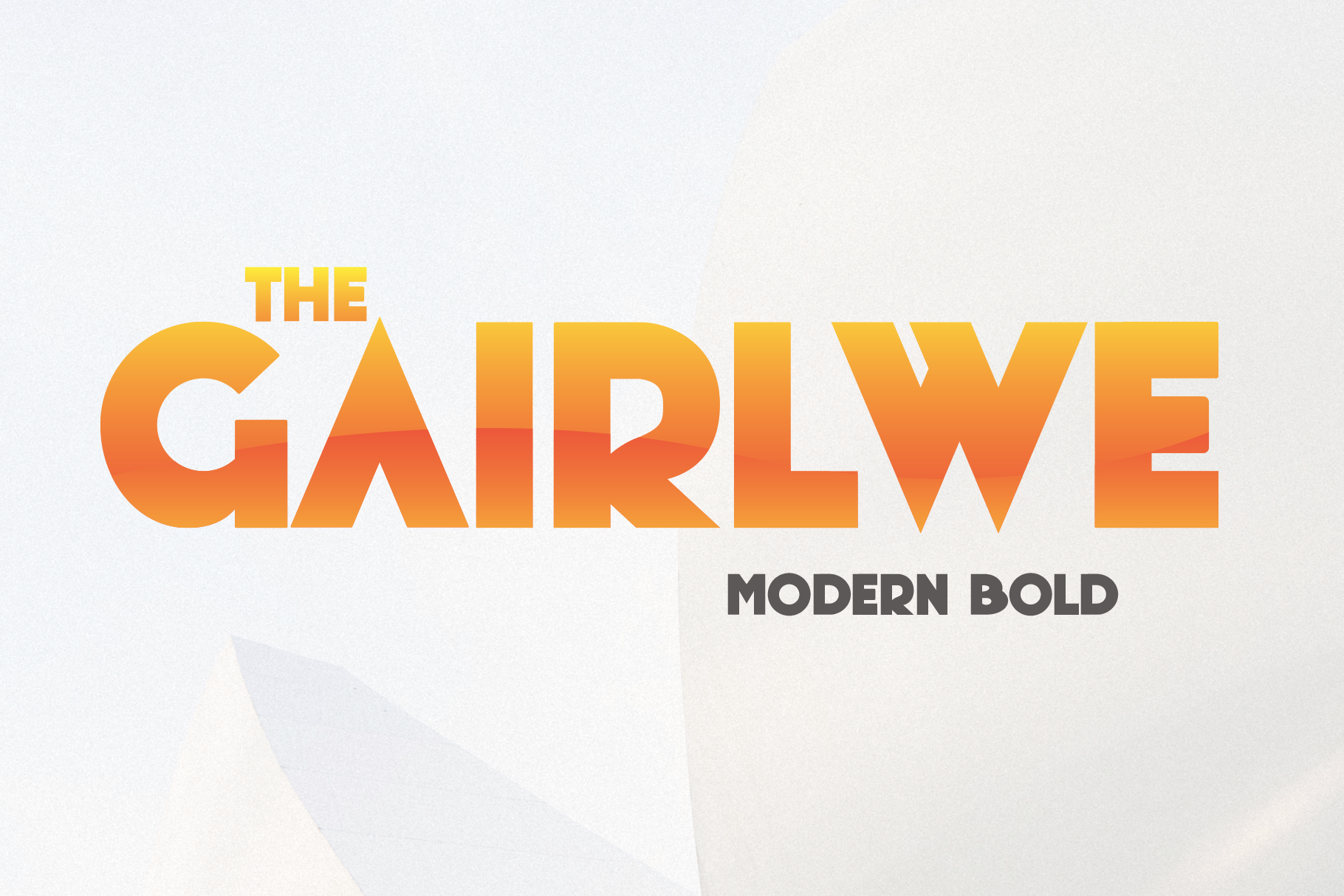
Gairlwe - Bold Font
Introducing Gairlwe, an modern, simple, and bold sans serif font. So perfect for you who needs a typeface for logo designs, magazine, social media, brochure, and many more.